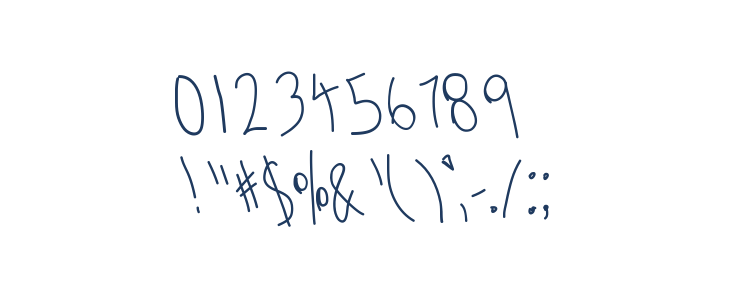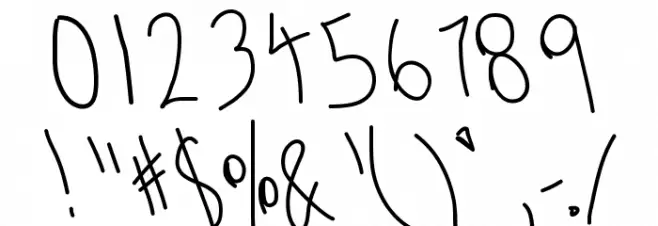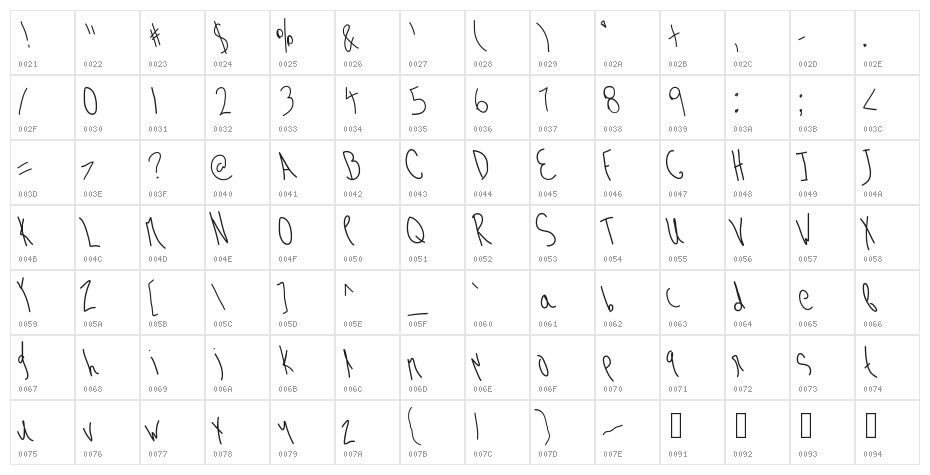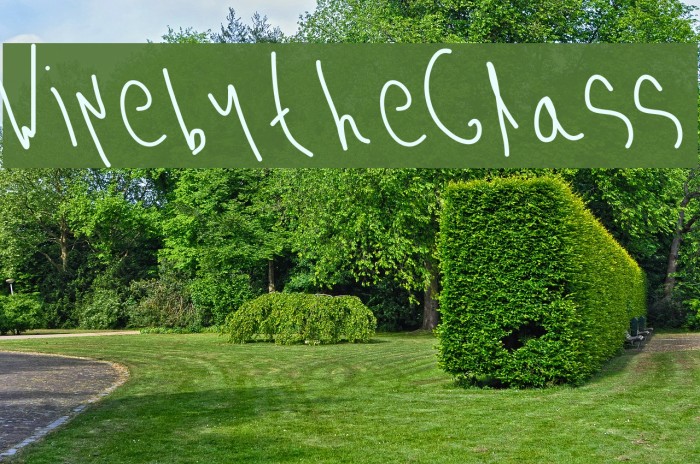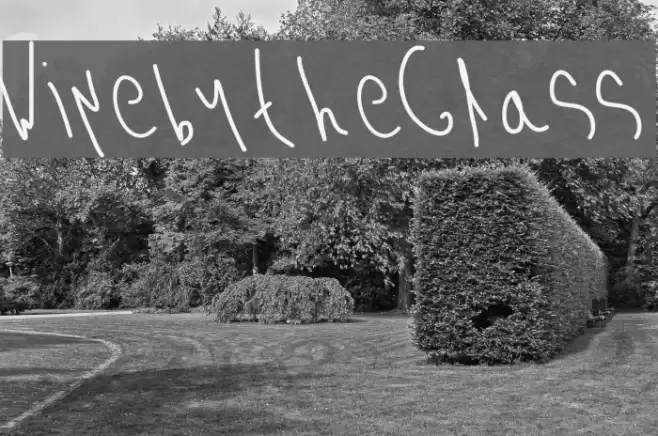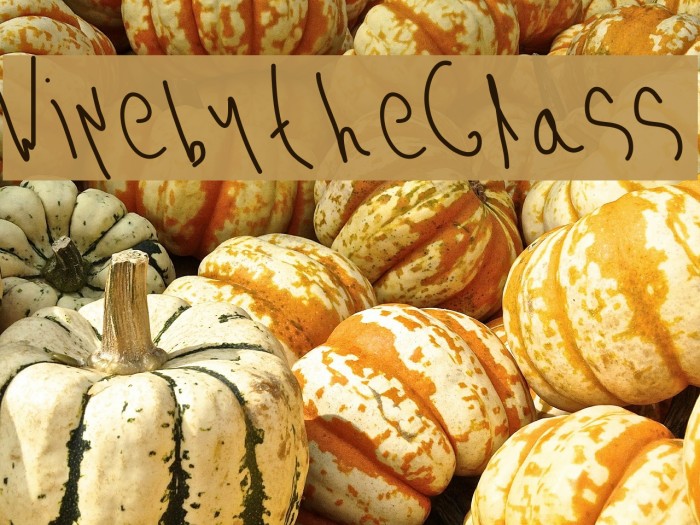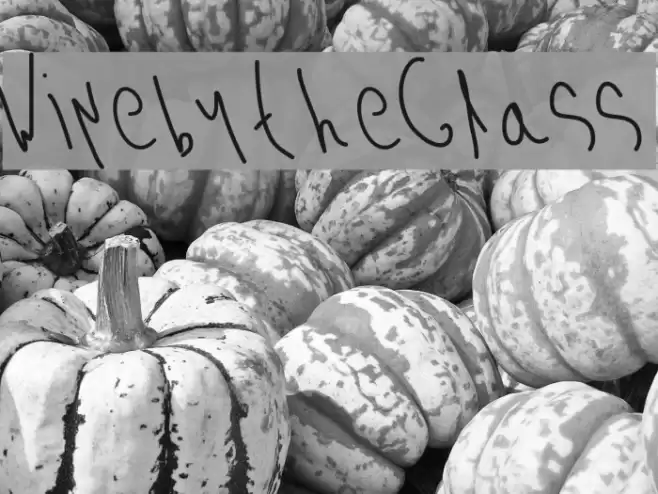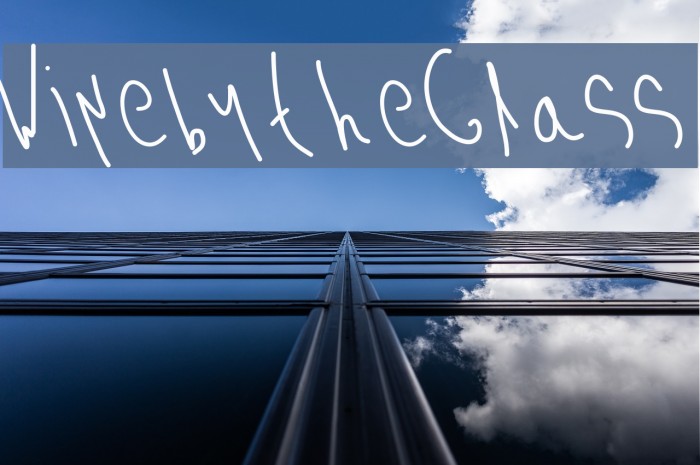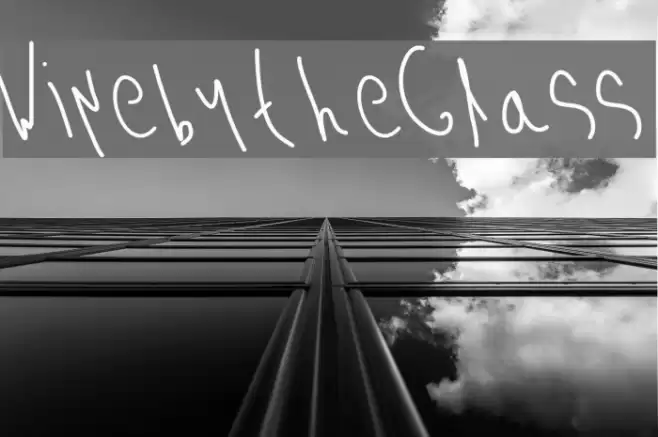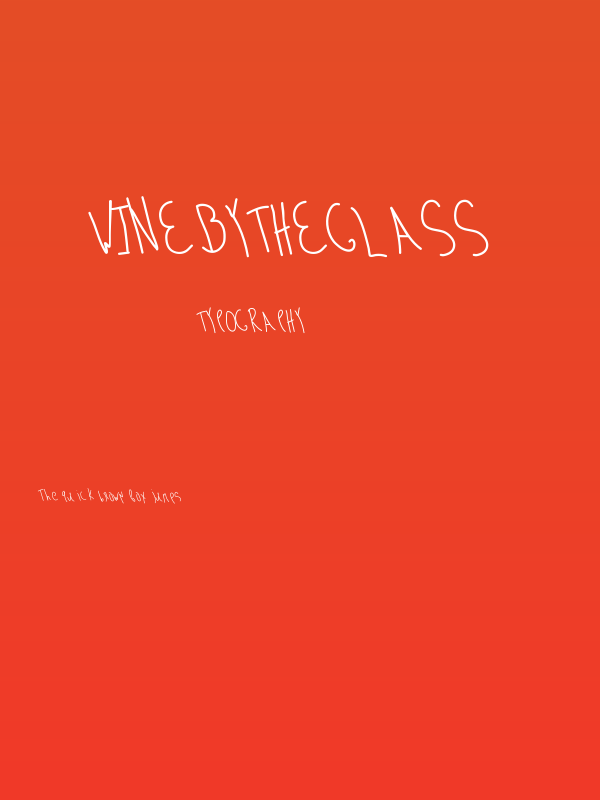
WinebytheGlass Font
WinebytheGlass Description
This font exudes a casual, handwritten style with a playful and informal appearance. The characters are unevenly spaced, giving it a spontaneous and lively feel. The strokes are consistent in thickness, maintaining a uniform look across both uppercase and lowercase letters. The numerals and special characters follow the same whimsical style, adding to the overall charm. This font is perfect for projects that require a personal touch, such as invitations, greeting cards, or creative branding. Its unique character makes it stand out, while still being legible and approachable.
| Use Case | Invitations, Greeting cards, Creative branding |
| Proposed Projects | Ideal for invitations, greeting cards, creative branding, and personal projects. |